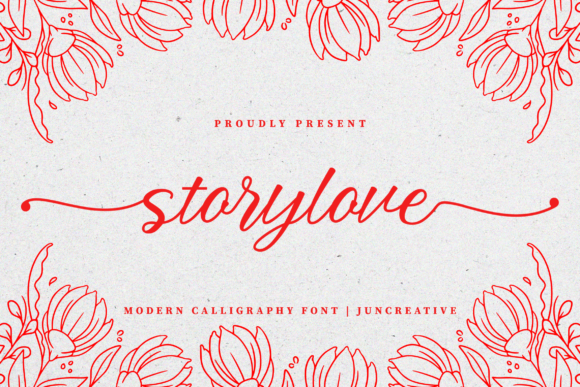
Step into a world of elegance and charm with Storylove Font, a captivating script font family designed to bring a touch of sophistication to your creative endeavors. With its graceful curves and flowing lines, Storylove adds an irresistible allure to any project, whether it's a wedding invitation, a heartfelt thank you card, or an eye-catching logo.
Crafted with meticulous attention to detail, Storylove embodies the essence of modern calligraphy, capturing the beauty of handwritten strokes in a digital format. Its organic and expressive nature lends itself effortlessly to both formal and playful designs, adding a touch of personal style that sets your work apart.
Immerse yourself in the versatility of Storylove, a font family that seamlessly adapts to an array of design needs. Its elegant script effortlessly elevates wedding invitations and thank you cards, imbuing them with a timeless charm. Unleash your creativity in designing greeting cards and logos, where Storylove's graceful lines add a touch of sophistication and uniqueness.
With Storylove, you'll never be confined to the ordinary. Its PUA encoding grants you access to a treasure trove of glyphs and swashes, empowering you to unleash your artistic flair and create designs that leave a lasting impression. Let Storylove's captivating beauty ignite your imagination and transform your creative visions into masterpieces.
Embrace the allure of Storylove Font, the ultimate choice for designers seeking a font that speaks volumes. Its modern, handwritten style captivates audiences, adding a touch of magic to every project. Discover the endless possibilities that await you as you embark on a creative journey with Storylove, where elegance and charm converge to create designs that enchant and inspire.